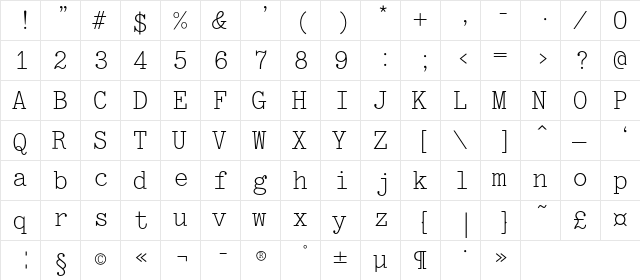
Jatran Regular
Design Context for Jatran Typeface
Jatran offers clean, dependable letterforms without strong stylistic allegiance, making it a practical choice for designers who need flexibility.
Pro Tip: Use Jatran in both headline and body roles to test its range before committing to a single application.